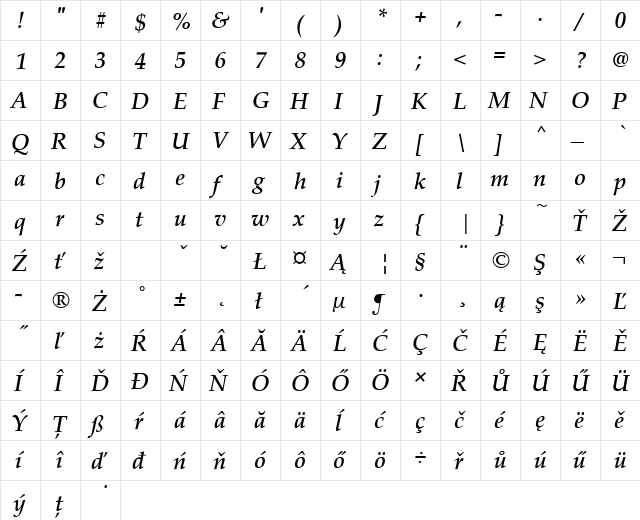
URWPalladioTEEMed Italic
Design Context for URWPalladioTEEMed Typeface
URWPalladioTEEMed offers clean, dependable letterforms without strong stylistic allegiance, making it a practical choice for designers who need flexibility. The dynamic lean of this cut emphasises speed and emphasis in any layout.
Pro Tip: Try URWPalladioTEEMed for annotation and caption copy alongside an upright companion — the contrast in angle creates a dynamic but ordered typographic system.